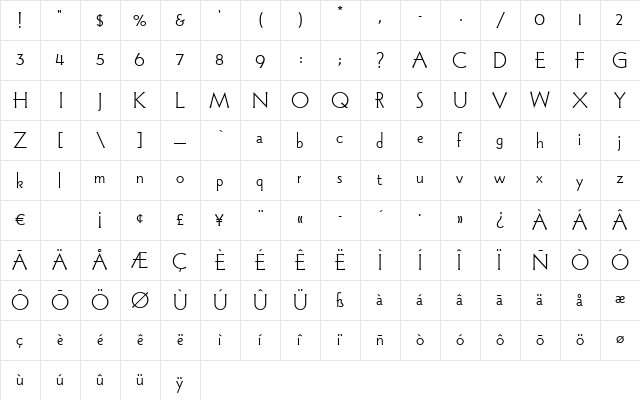
Wade Sans Light Regular
Design Context for Wade Sans Light Typeface
Wade Sans Light takes a measured approach to typography — its balanced proportions and neutral character make it a reliable workhorse for both digital and print work. Its slender proportions lend an understated elegance to any composition.